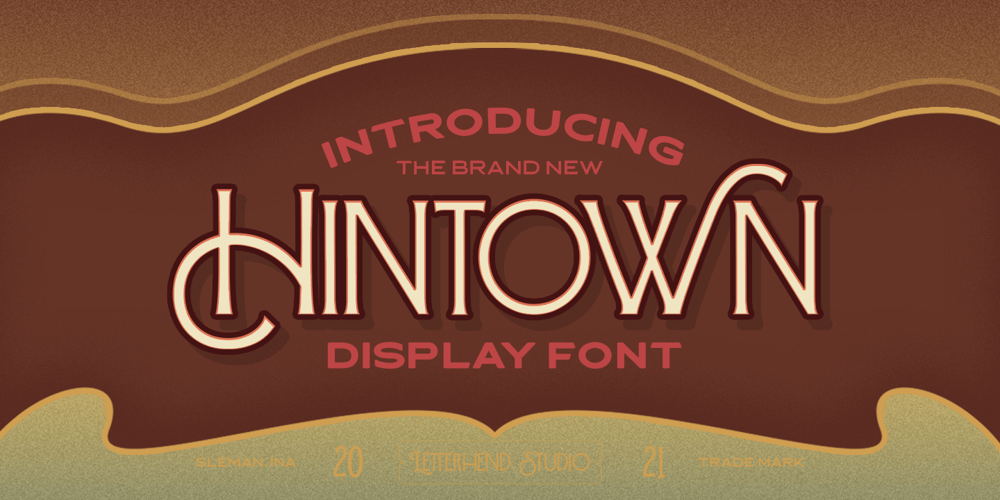
Hintown Font Family was designed by Hendry Juanda and published by Letterhend. Hintown contains 2 styles and family package options. Hintown is a unique serif with classy and classic look with vintage feel, inspired by art deco and 1900 signages. This font perfectly made to be applied especially in logo, and the other various formal forms such as invitations, labels, logos, magazines, books, greeting / wedding cards, packaging, fashion, make up, stationery, novels, labels or any type of advertising purpose.Features : uppercase and lowercase numbers and punctuation multilingual PUA encoded We highly recommend using a program that supports OpenType features and Glyphs panels like many of Adobe apps and Corel Draw, so you can see and access all Glyph variations.